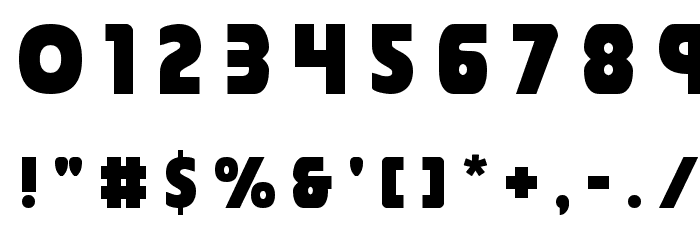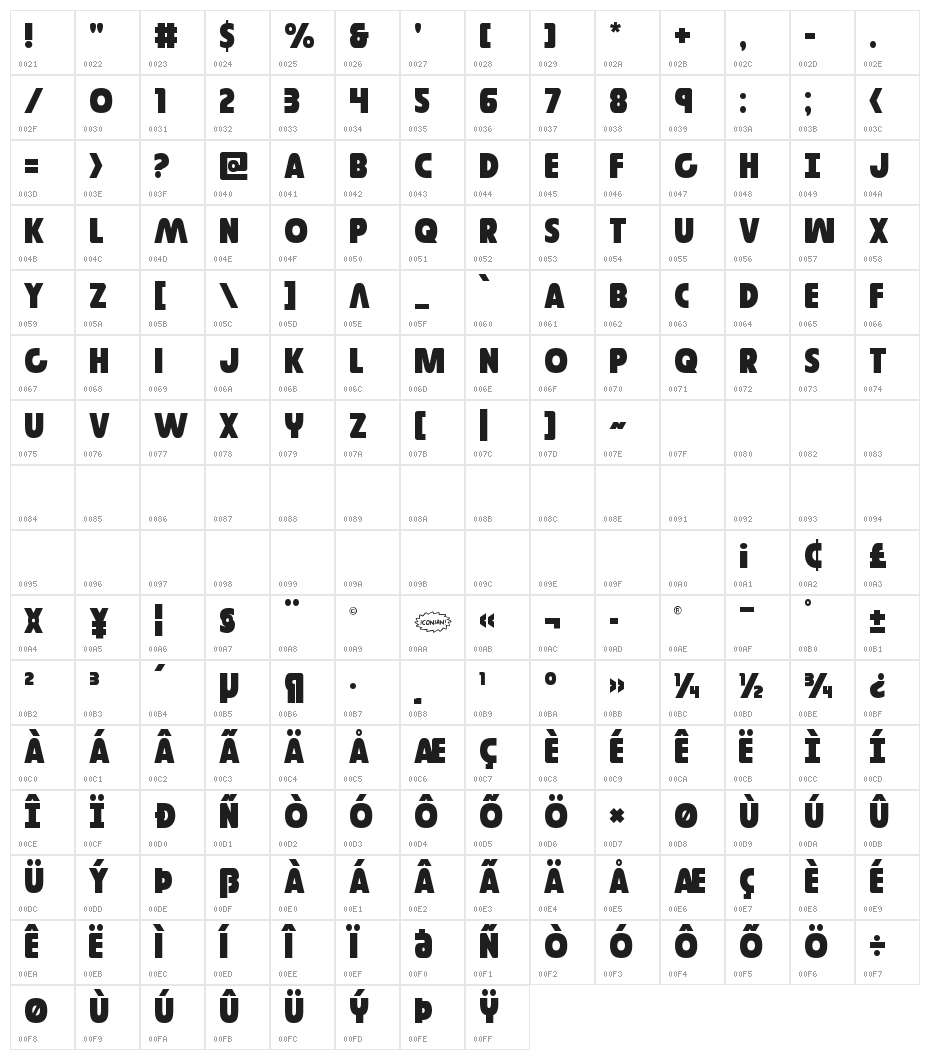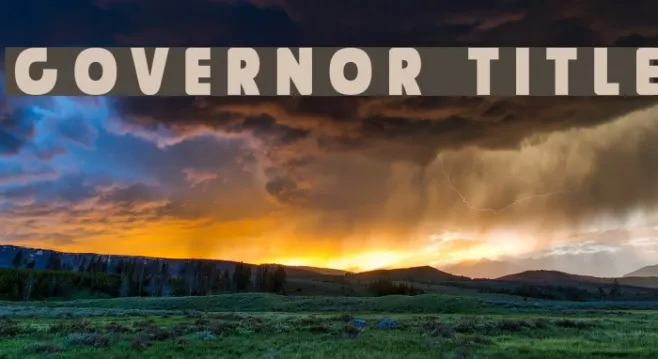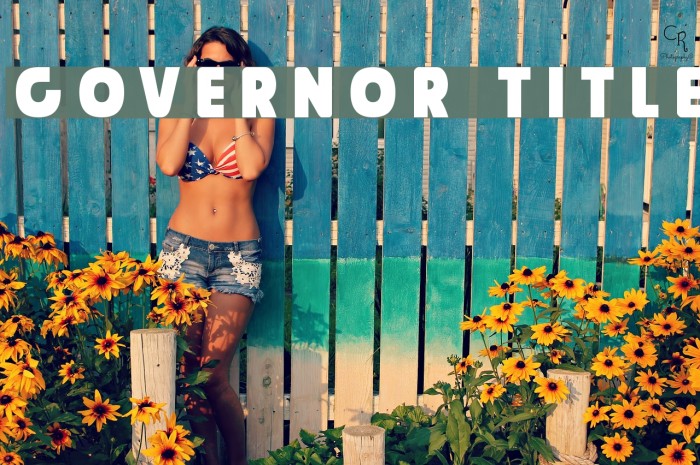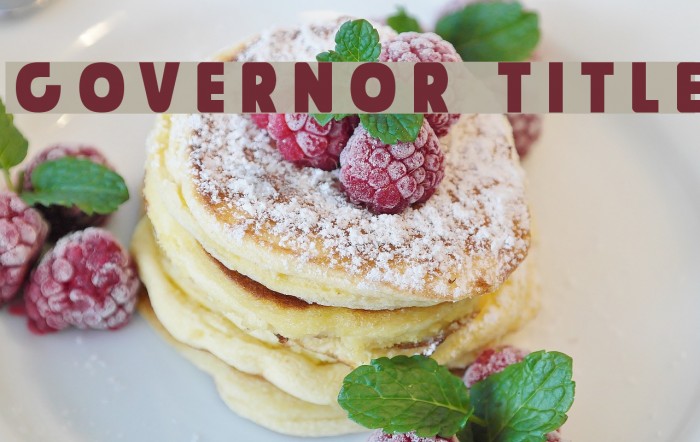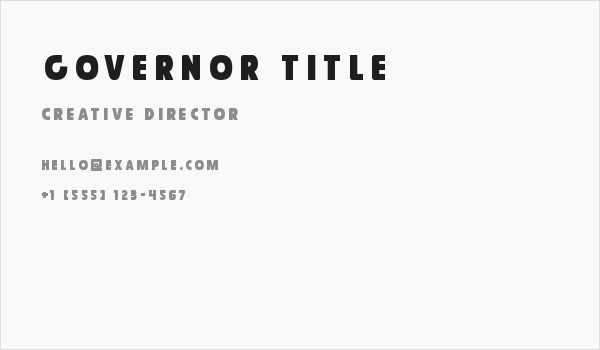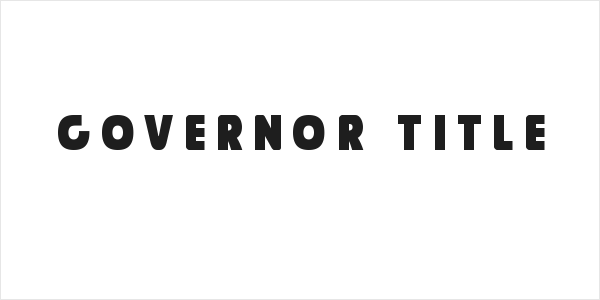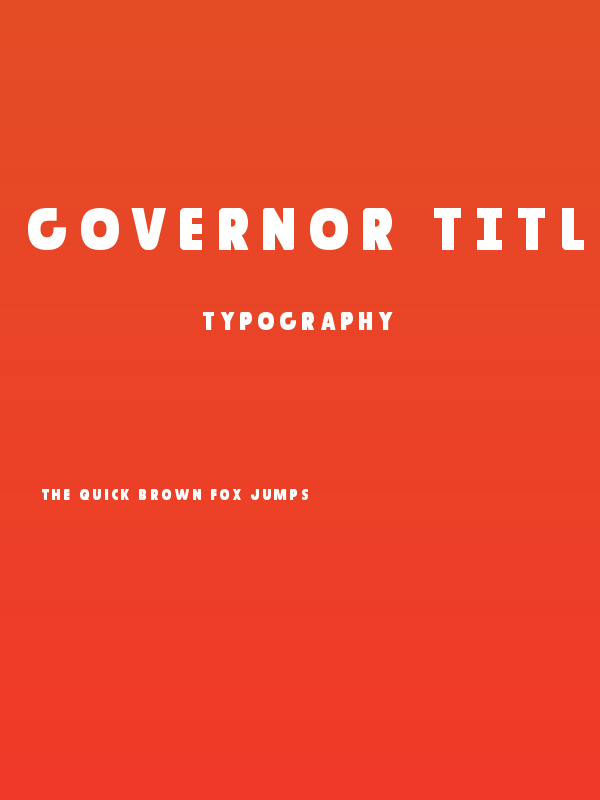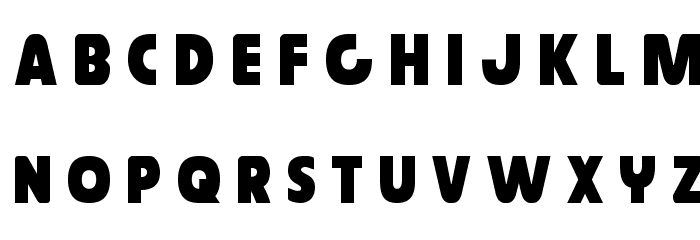
Governor Title Font
Governor Title Description
This font features bold, rounded characters with a strong presence, making it ideal for attention-grabbing headlines and titles. The uppercase letters are uniform in height, with a consistent stroke width that gives a solid and impactful appearance. The lowercase letters maintain the same boldness, ensuring readability and consistency across different text sizes. The numerals are equally bold and rounded, matching the style of the alphabetic characters. Special characters are included, maintaining the same bold and rounded style, ensuring they integrate seamlessly with the rest of the font. Overall, this font exudes a modern and robust aesthetic, suitable for various design applications where a strong visual impact is desired.
| Proposed Projects | This font is perfect for branding projects, poster designs, and any application requiring a strong visual impact. |